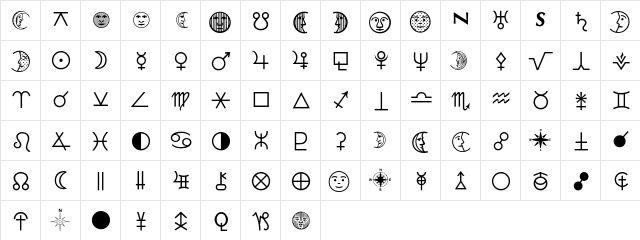
Astrology P02
Complete Astrology P02 glyph index. Displaying only characters natively supported by Astrology P02 font.
Design Context for Astrology
Astrology is a composed and adaptable typeface that performs quietly and consistently across a wide range of design contexts.